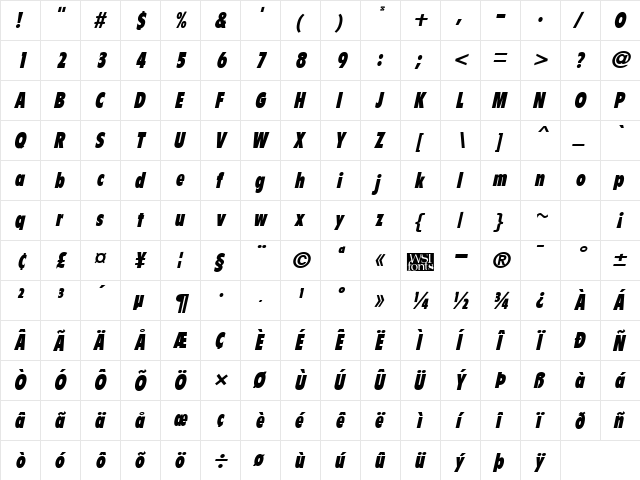
Bulletin Italic
Design Context for Bulletin Typeface
Bulletin offers clean, dependable letterforms without strong stylistic allegiance, making it a practical choice for designers who need flexibility. The slanted form adds forward momentum and visual energy.
Pro Tip: Use Bulletin for emphasis, pull quotes, and subheadings where its slanted energy can add rhythm to the layout.